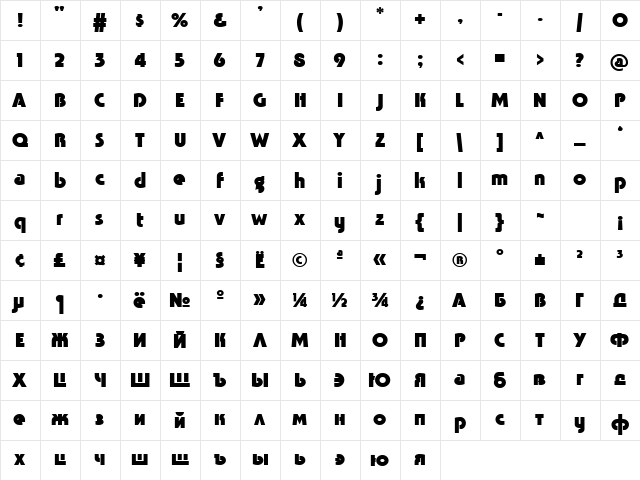
Tavrida Bold Font Preview
Tavrida Bold
Tavrida Bold Font Details
Design Context for Tavrida Typeface
Tavrida takes a measured approach to typography — its balanced proportions and neutral character make it a reliable workhorse for both digital and print work. The heavy weight commands attention and anchors typographic hierarchies.